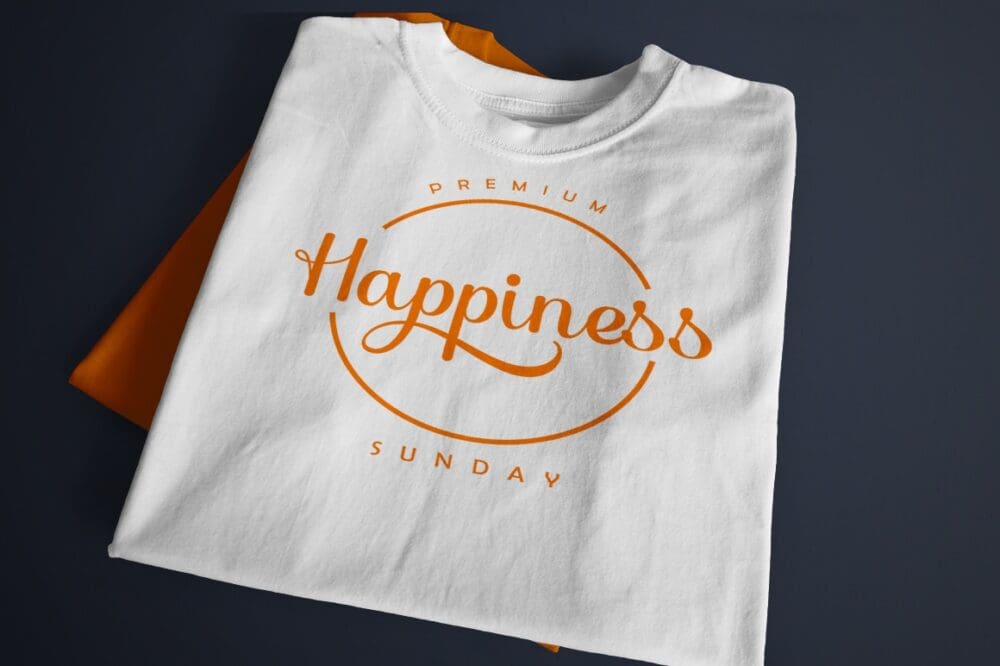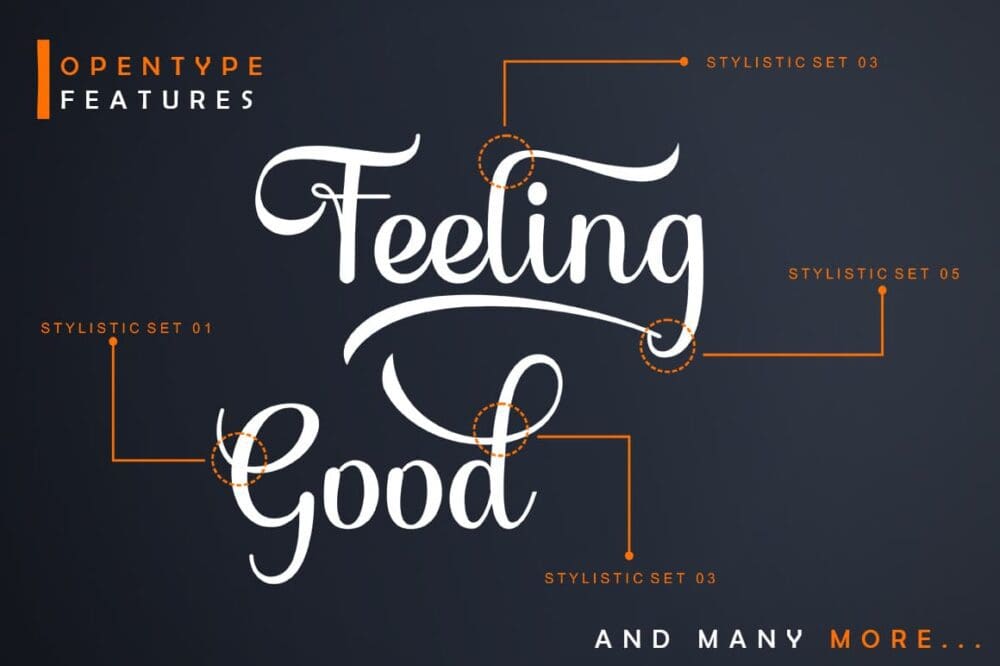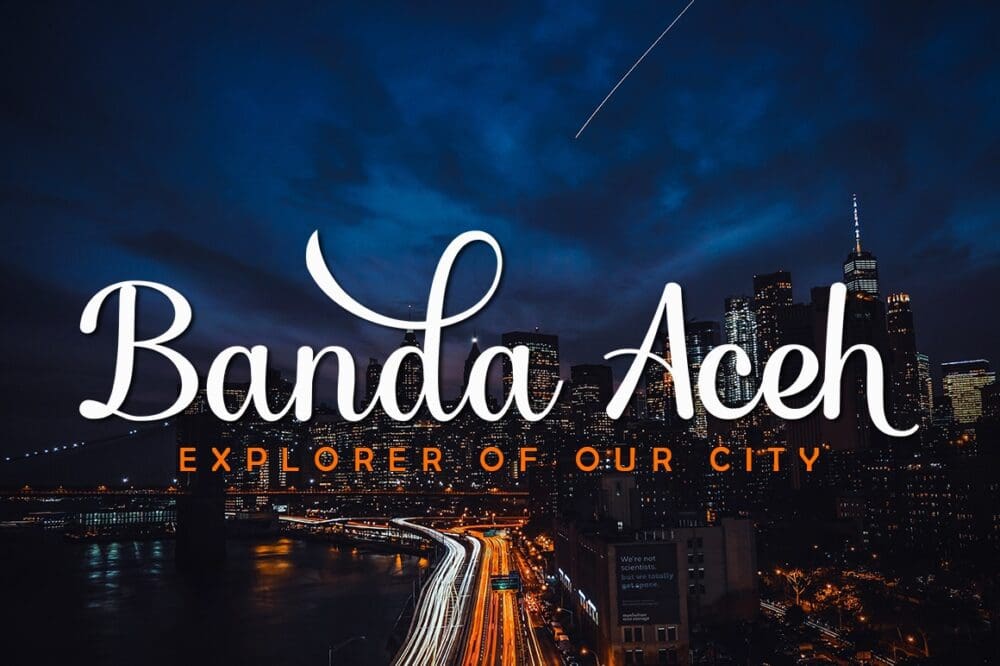
The Nightfall Script Font
The Nightfall is a romantic typeface. bold, elegant & fun vintage Script Font. Can be used for various purposes, such as logos, wedding invitation, t-shirt, letterhead, signage, news, posters, badges, etc.
The Nightfall features 300+ glyphs and 100+ alternate characters, ligatures, swash, and multiple language support.